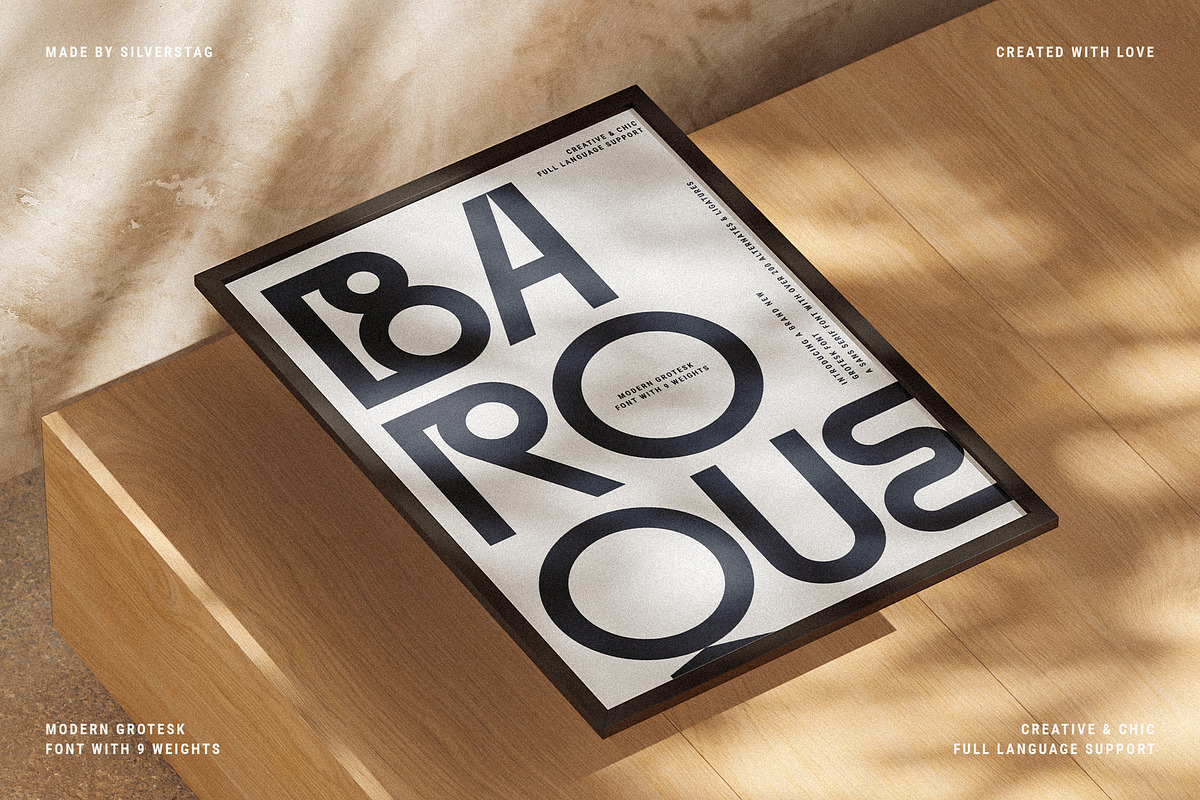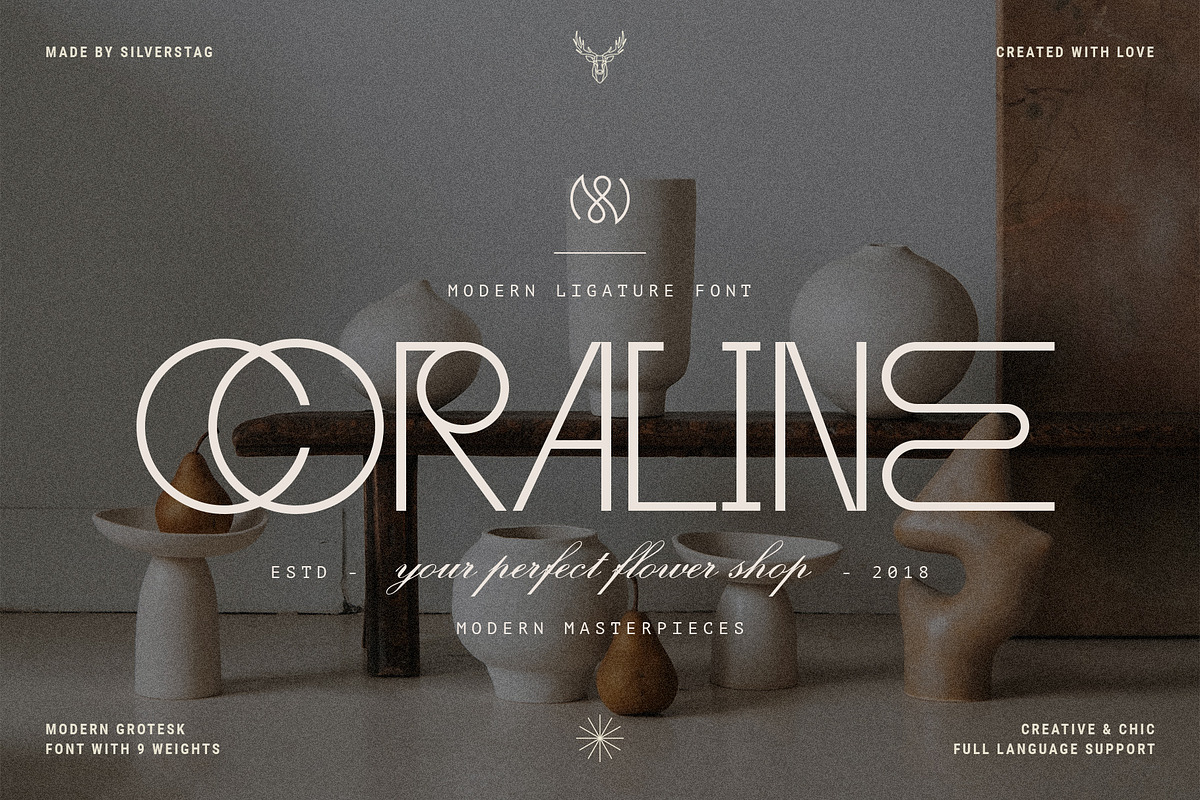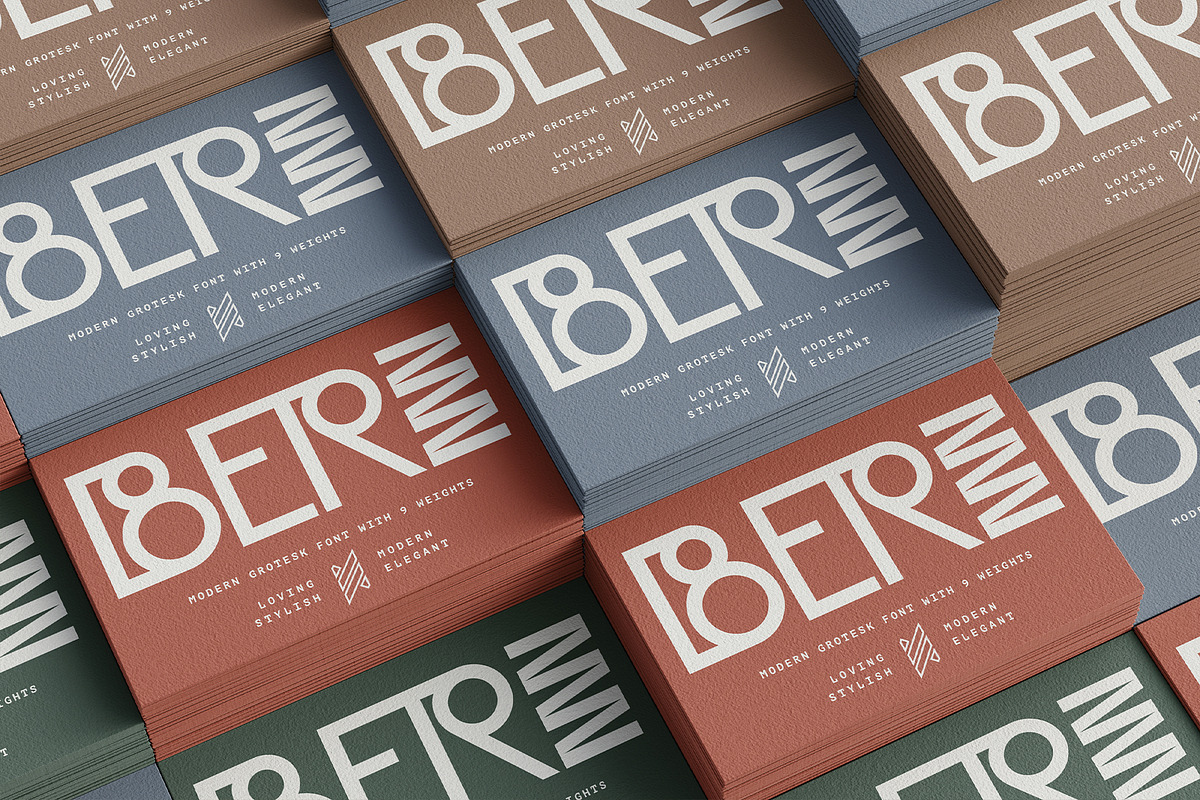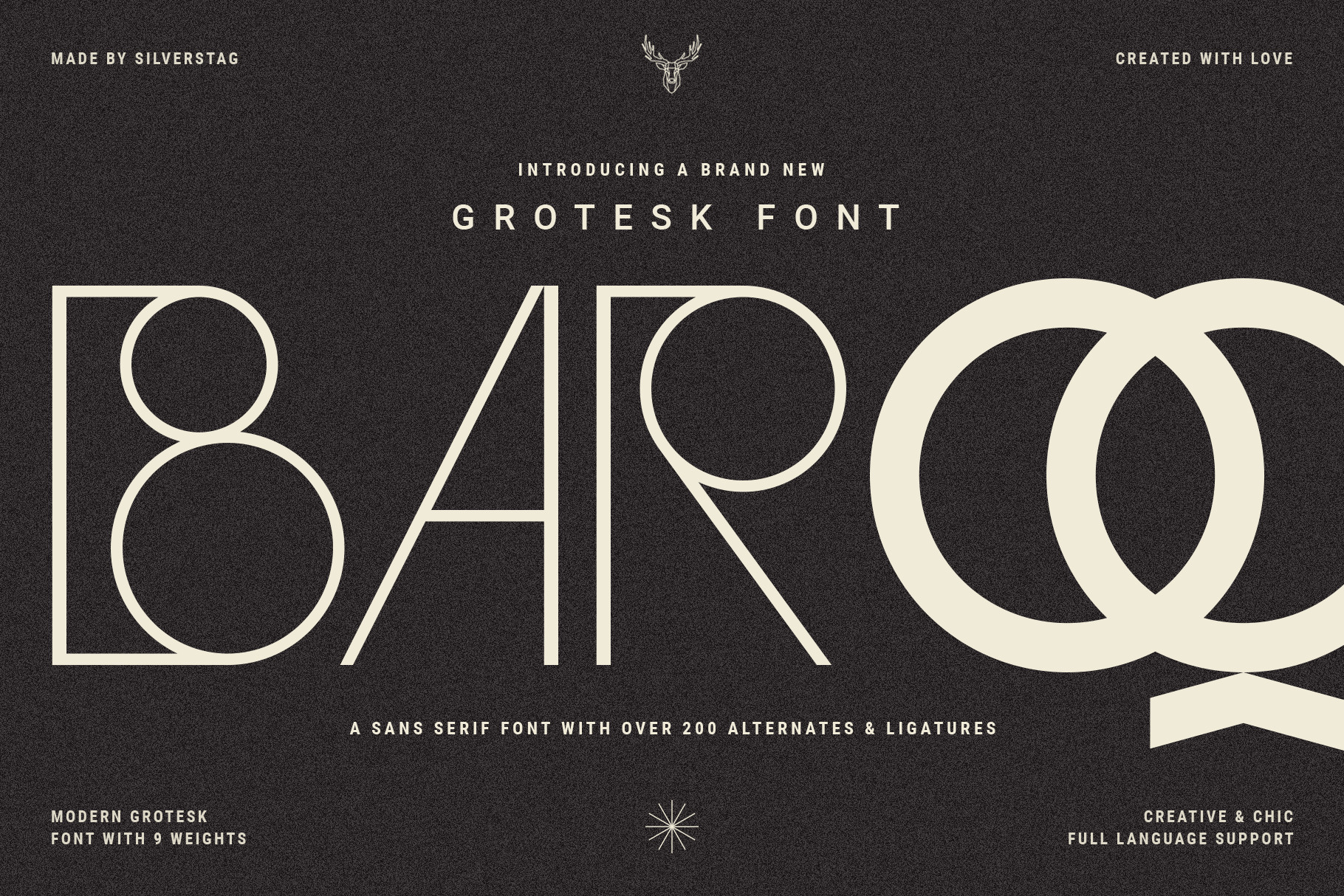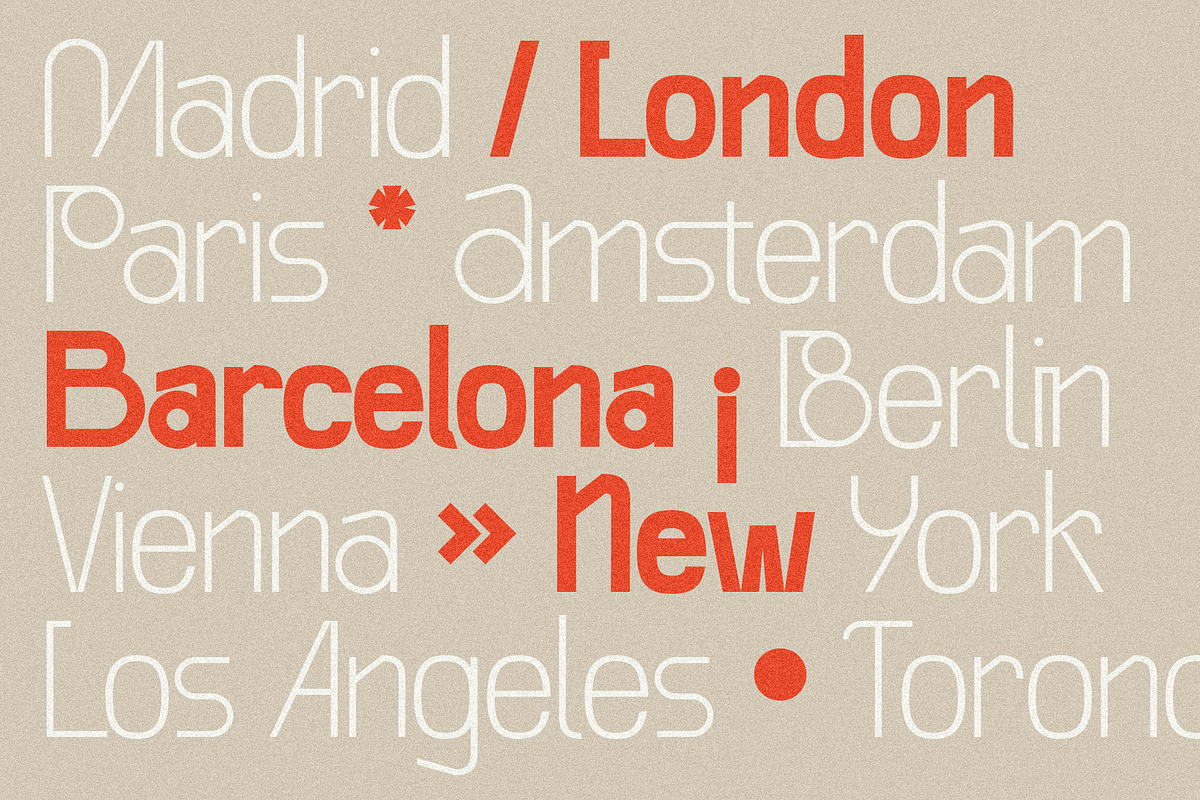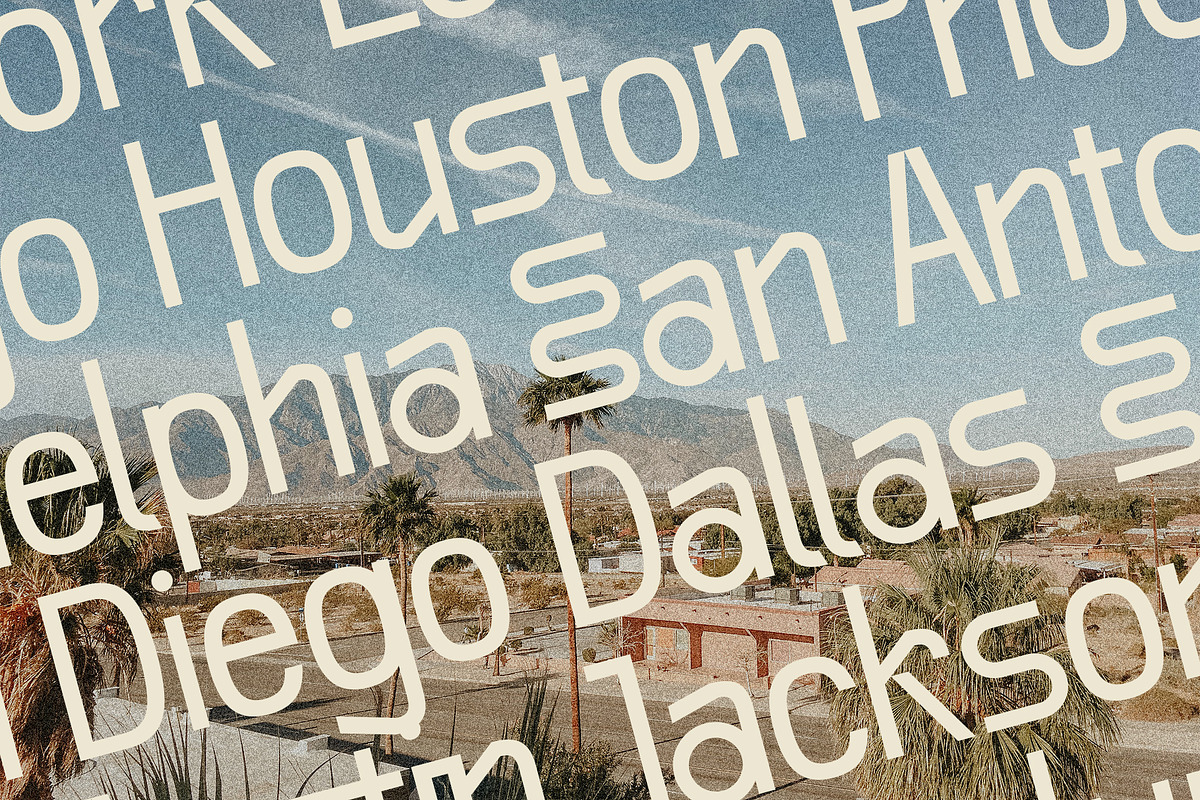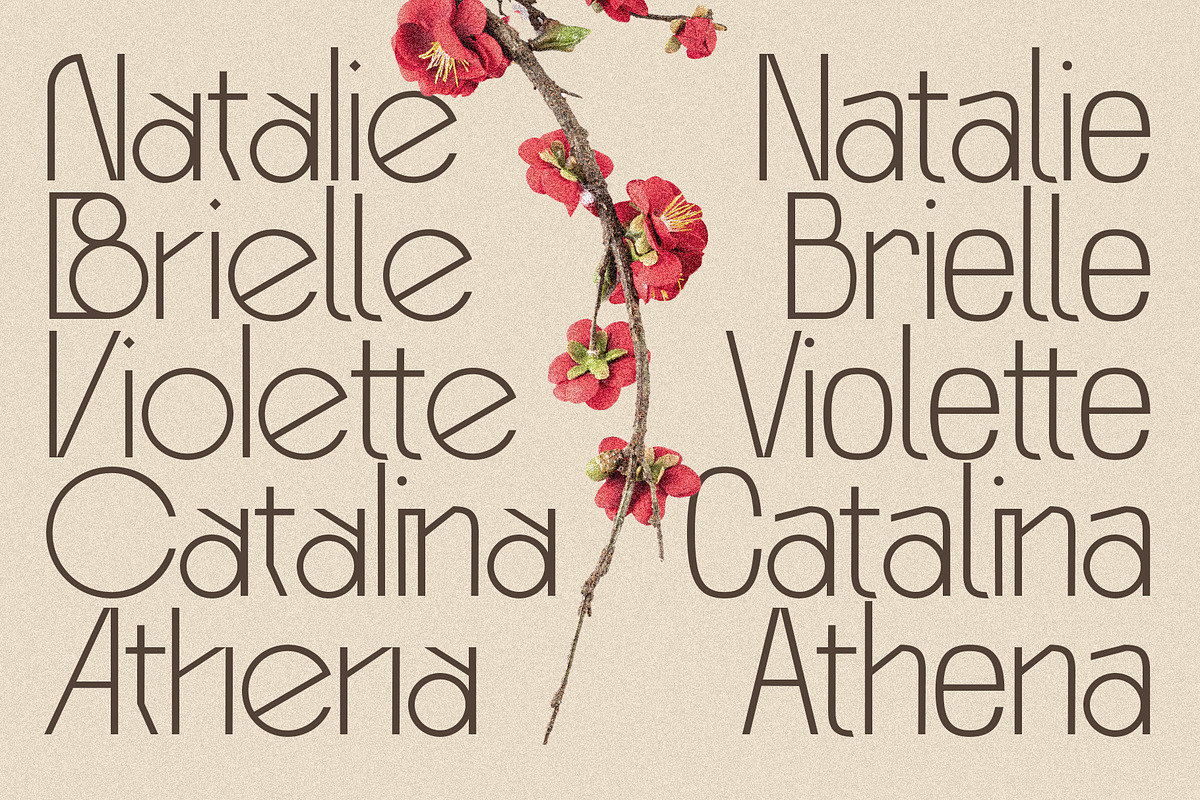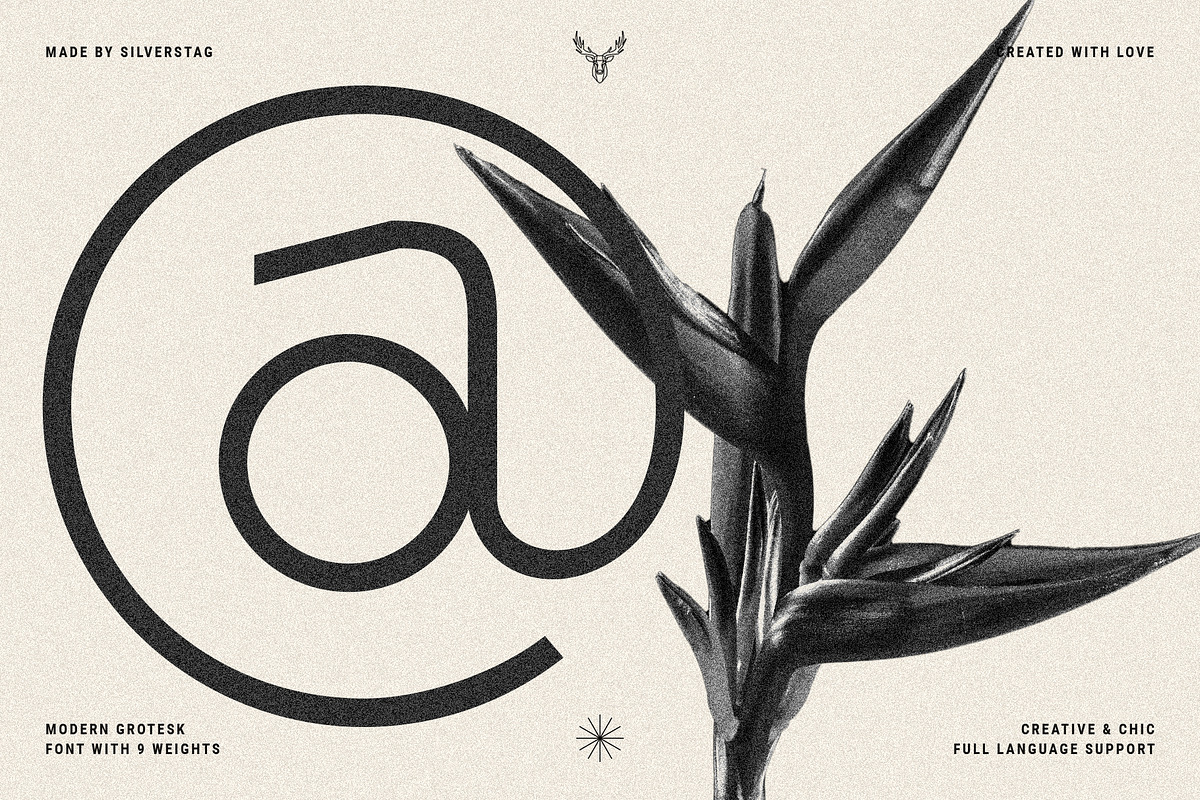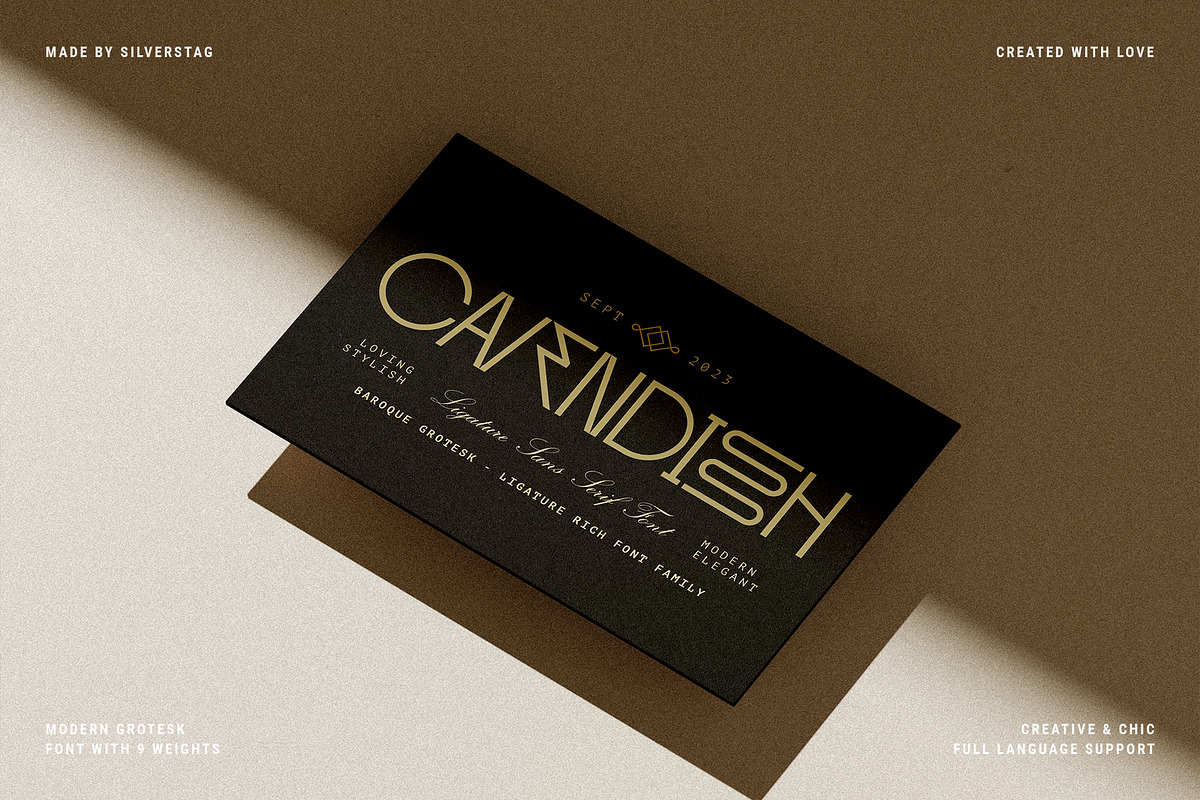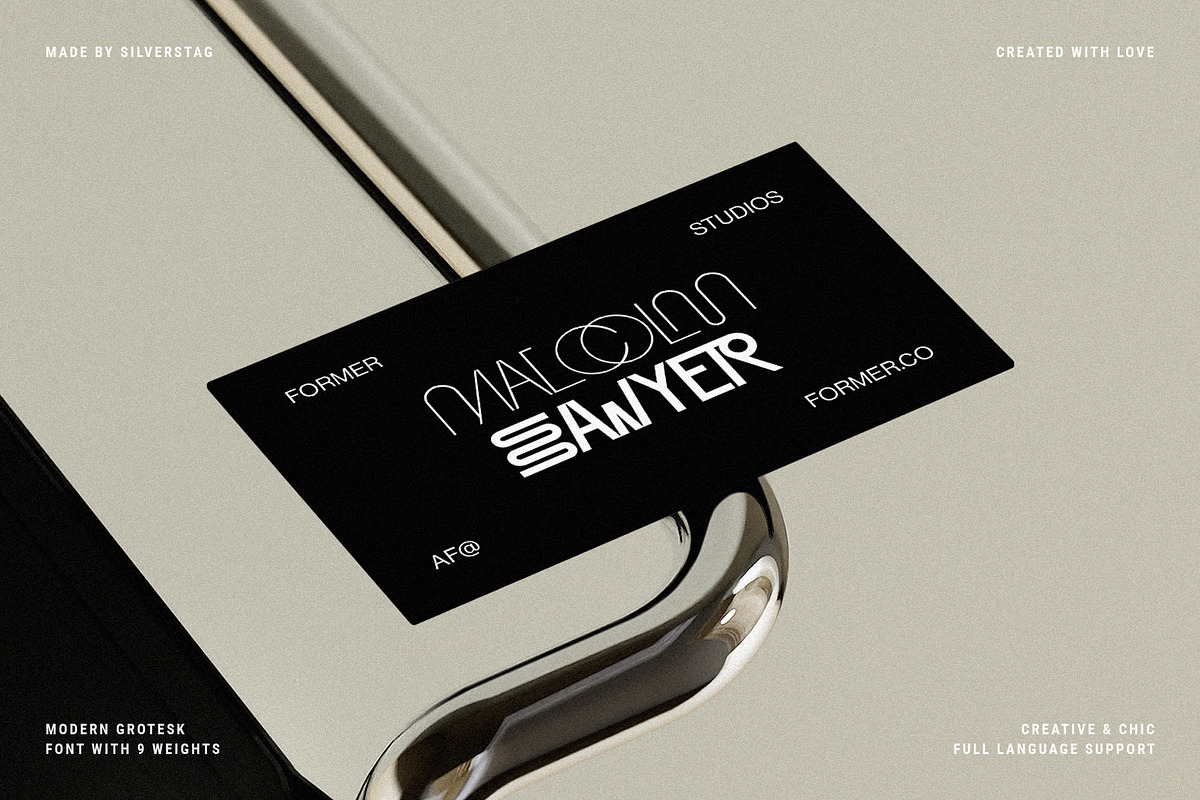
Baroque Grotesk - Ligature Rich Font
Introducing Baroque Grotesk, a font that seamlessly weaves the grace of baroque aesthetics into the structural simplicity of geometric shapes. It's a typeface that's as comfortable on the grandest stages as it is in contemporary digital spaces, embodying the essence of timeless design.
With support for 92 languages, Baroque Grotesk ensures that your message transcends borders and cultures effortlessly. But what truly sets this font apart are its over 200 alternates and ligatures, including two additional stylistic sets for uppercase letters and one for lowercase letters. These alternates allow you to infuse your designs with a unique personality, making each project a true work of art.
Baroque Grotesk offers not one, but nine distinct weights, ranging from the delicate and ethereal Thin to the commanding and bold Black. Whether you're crafting sleek digital interfaces, tactile print materials, or dynamic brand identities, this font adapts effortlessly, imbuing your work with a harmonious blend of sophistication and resilience. So, embrace the creative freedom that Baroque Grotesk provides, and watch your designs flourish organically, telling stories that captivate and inspire in their own unique way.
- Over 200 ligatures and alternate letters
- Language Support for 92 Languages